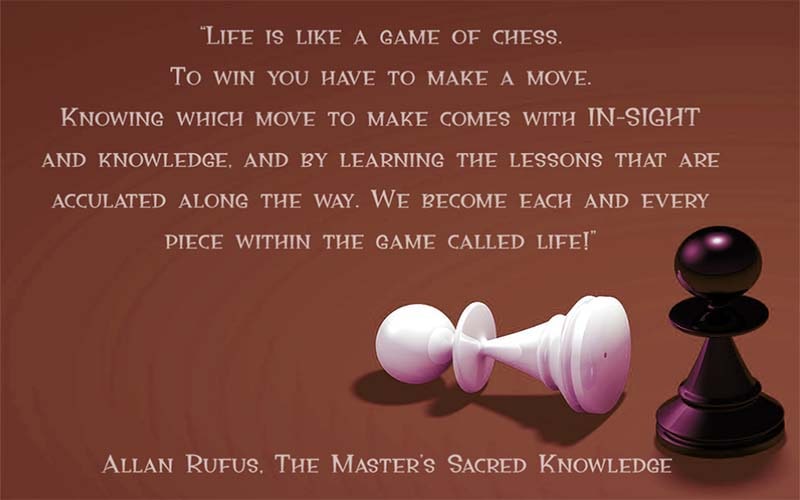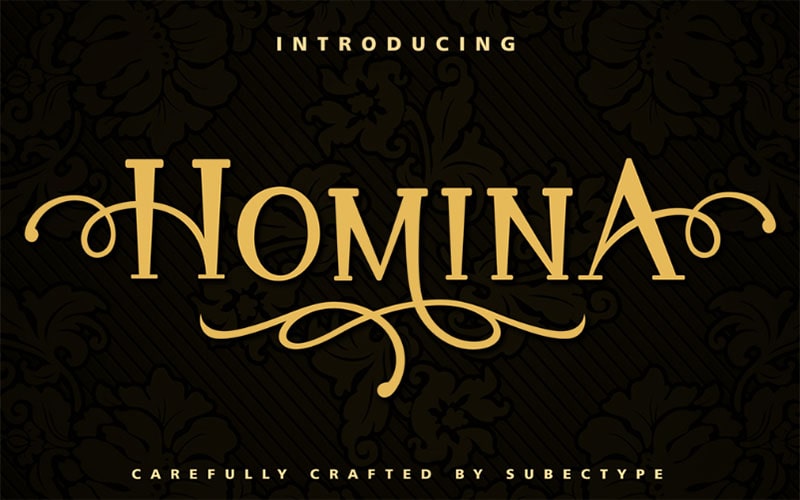
Homina Font is a great display and serif typeface that has a stylish, cool, and beautiful texture. An Indonesian font foundry the Rangga Subekti & Orenari designed this elegant typeface.
Its letters are designed in a distinctive fashion in which the letters on the upper side are wide and the letters on the lower side are a wave. As a result, the letters will be thin from top to bottom.
This font contains 107 characters including uppercase, lowercase, numbers, and punctuation marks. Let’s look at the texture for a moment.
Homina Font